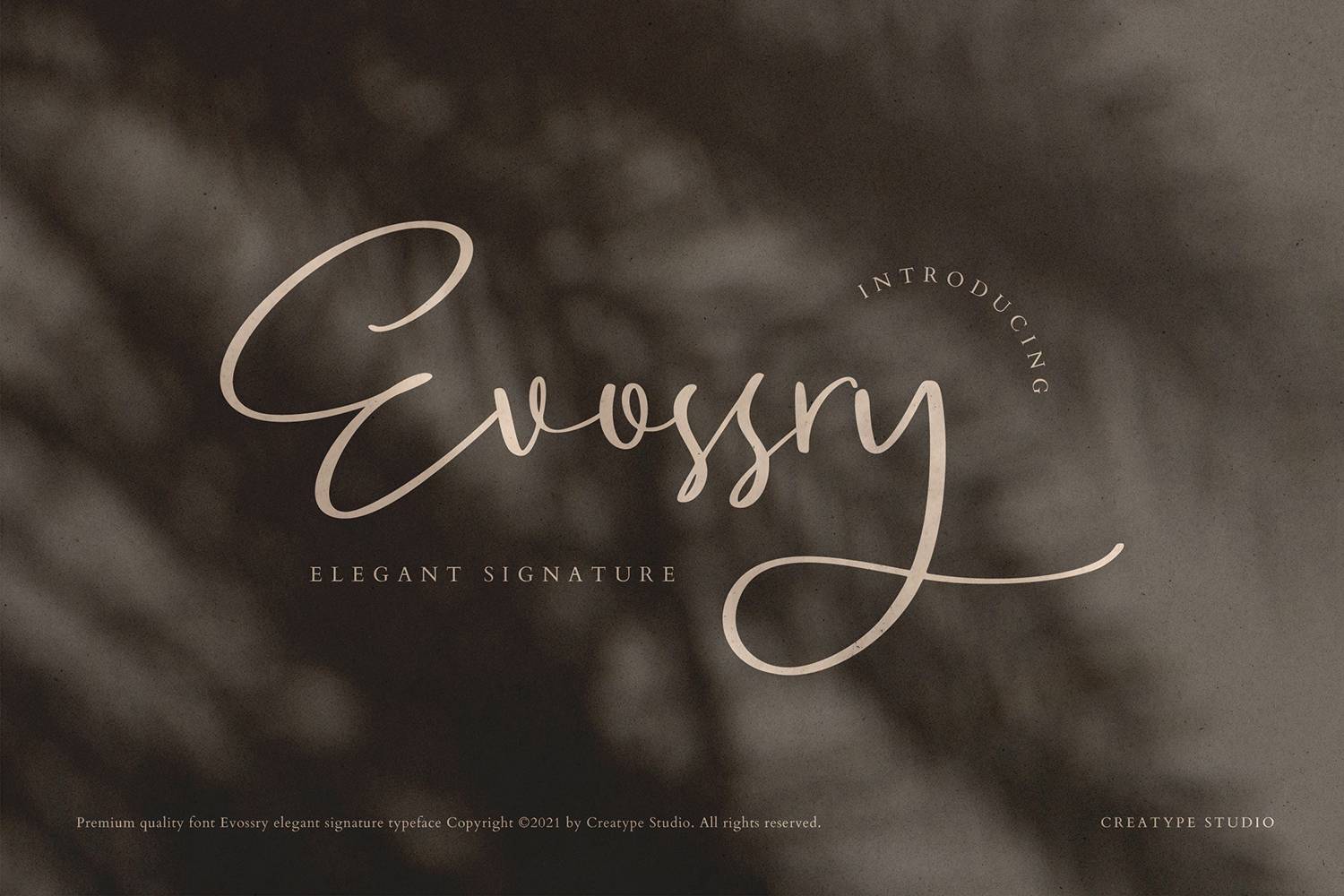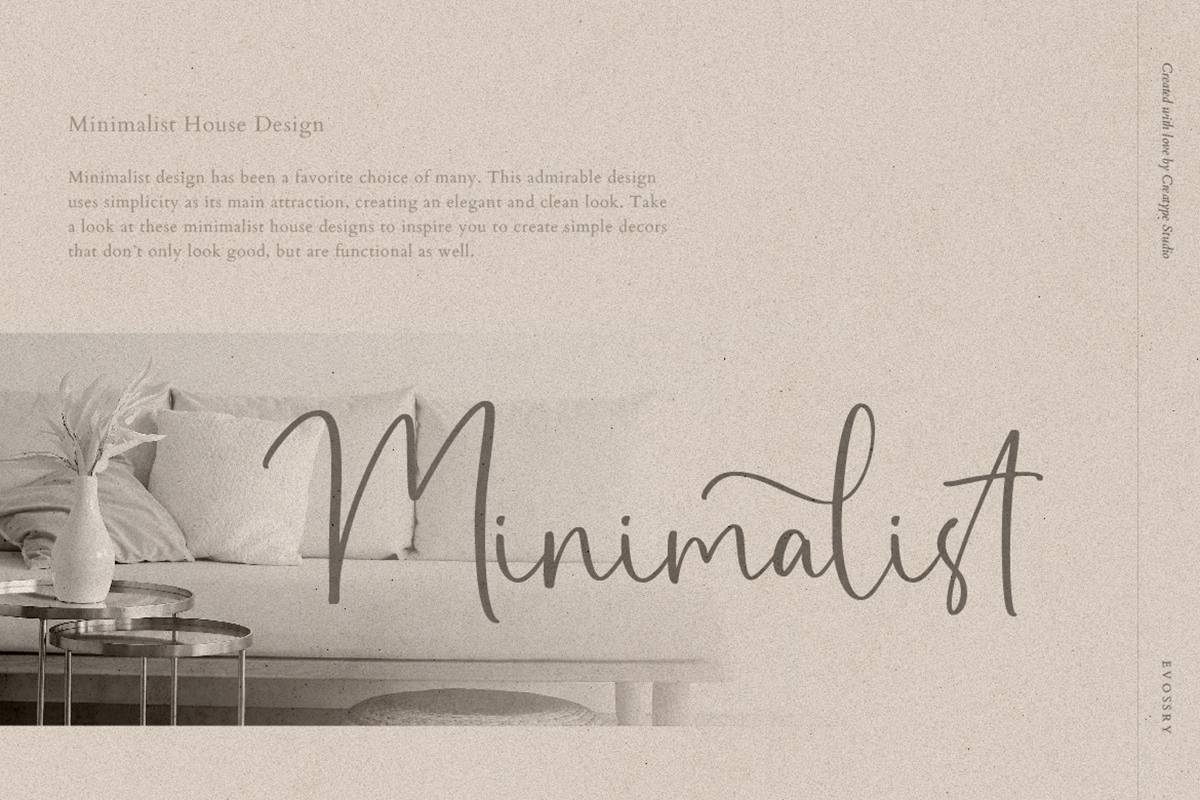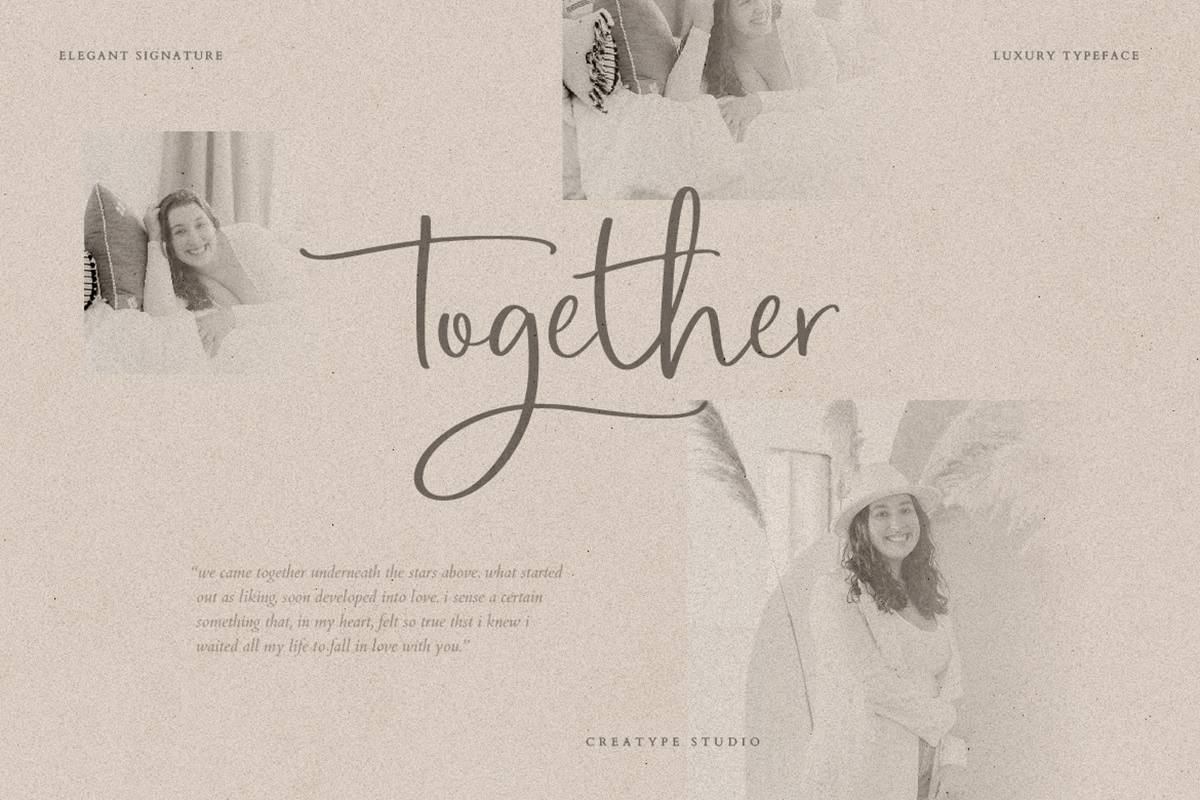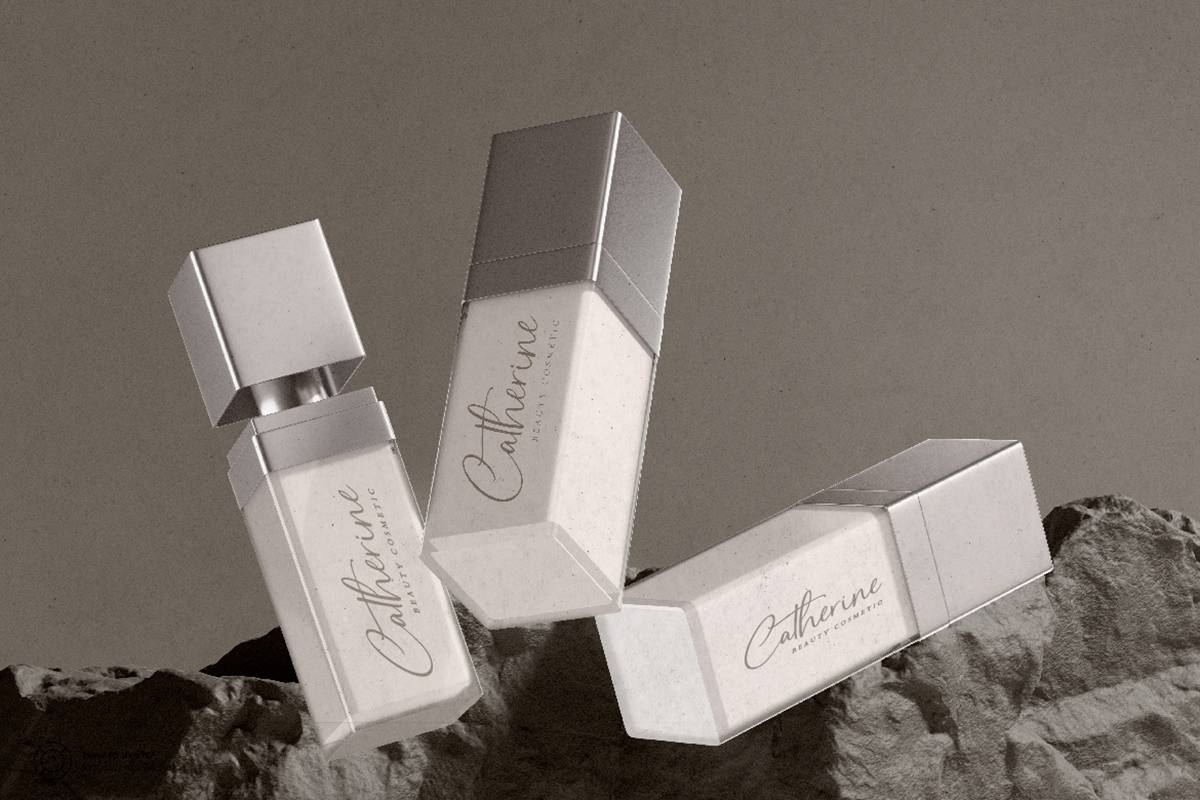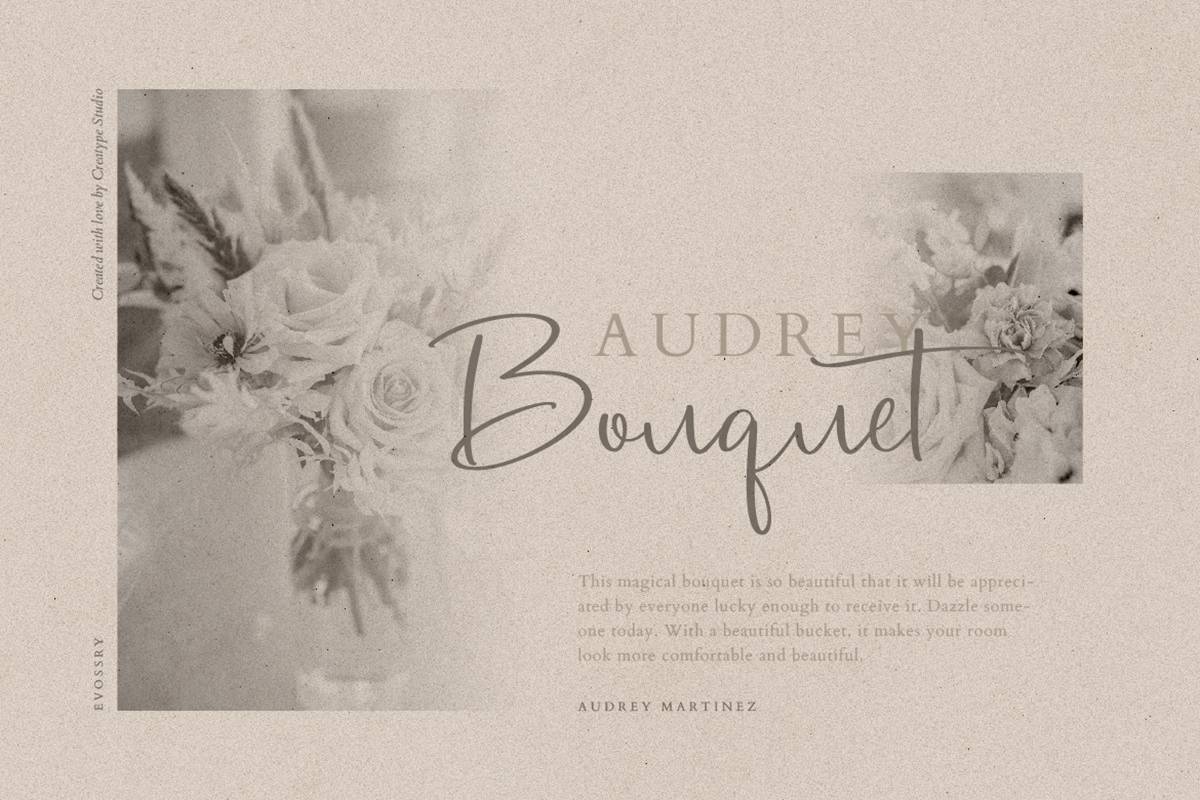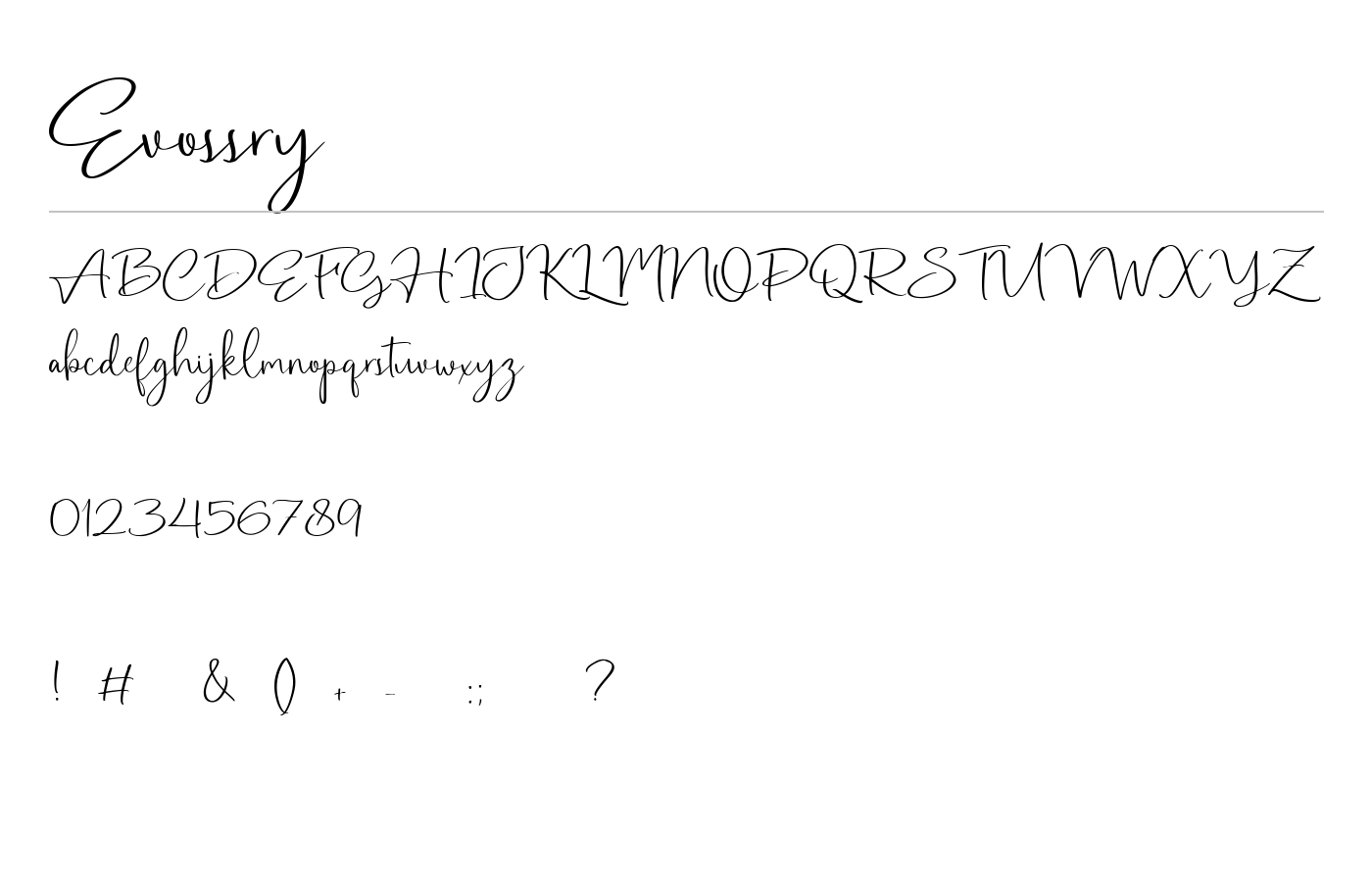
Evossry Elegant Font is a graceful, light script typeface that features delicate, flowing strokes with a handwritten feel. Its slender letterforms and subtle curves convey sophistication and charm, making it ideal for luxury branding, invitations, and elegant headlines where a personal and refined touch is desired. This font works beautifully in designs that seek to communicate elegance and warmth with a modern, stylish flair.
Evossry Elegant Font
About Evossry Elegant Font
| Font family | Evossry Elegant Font |